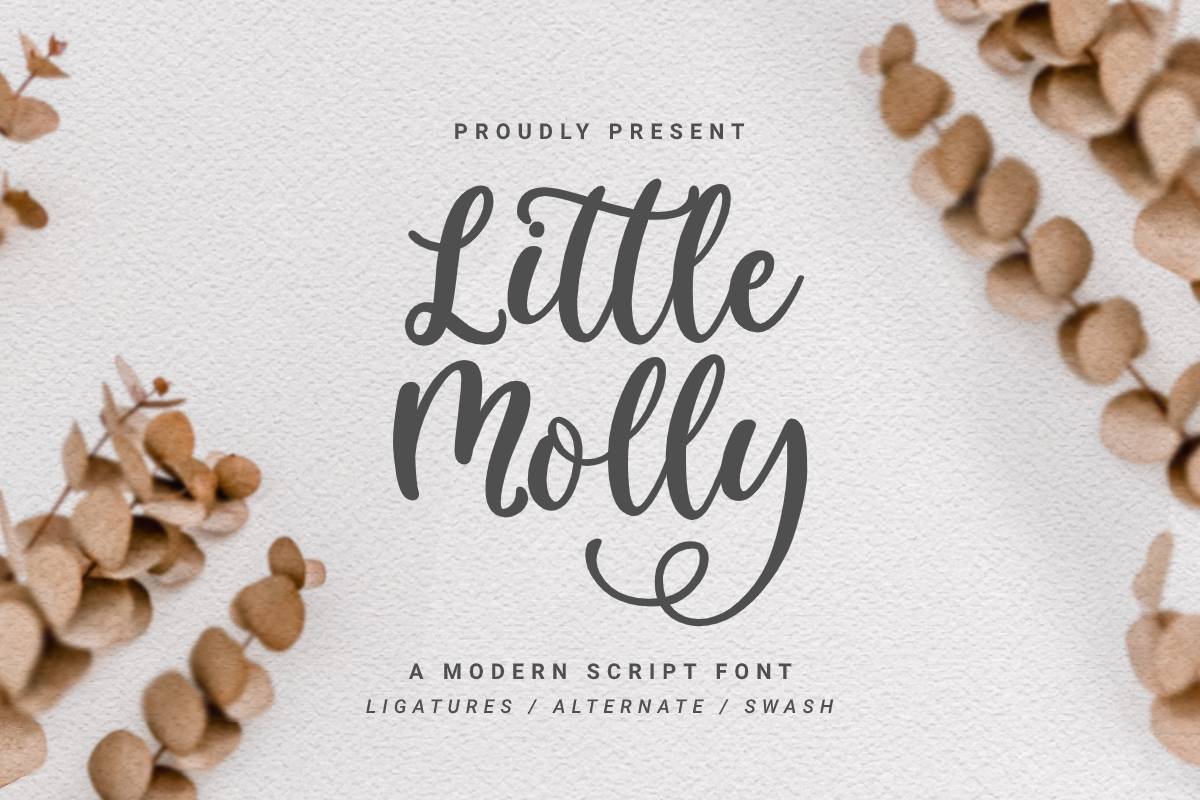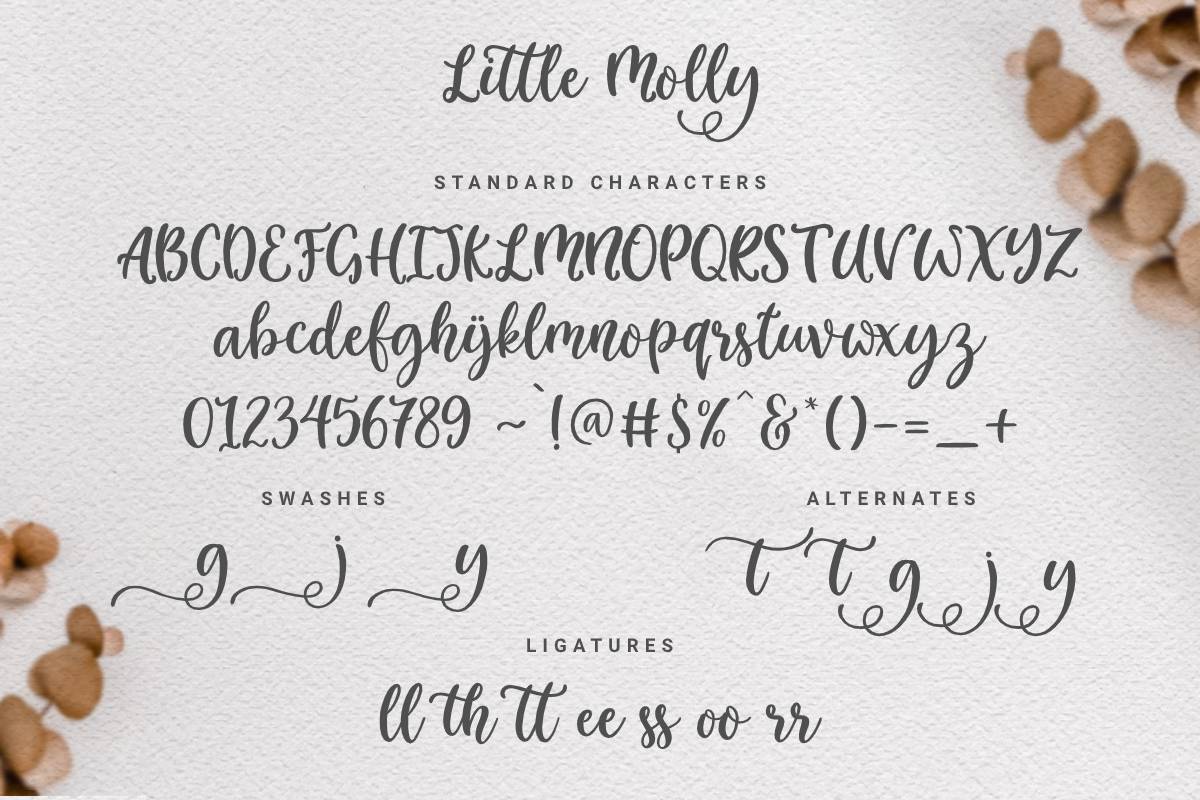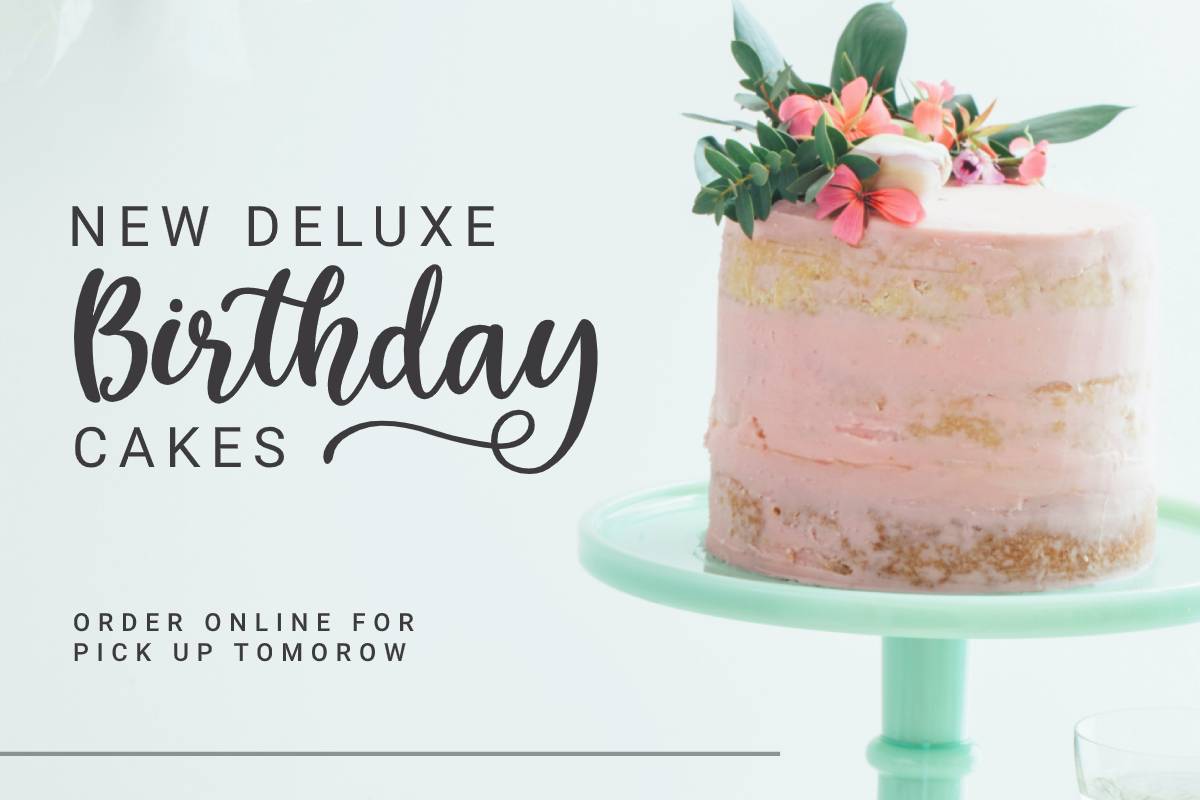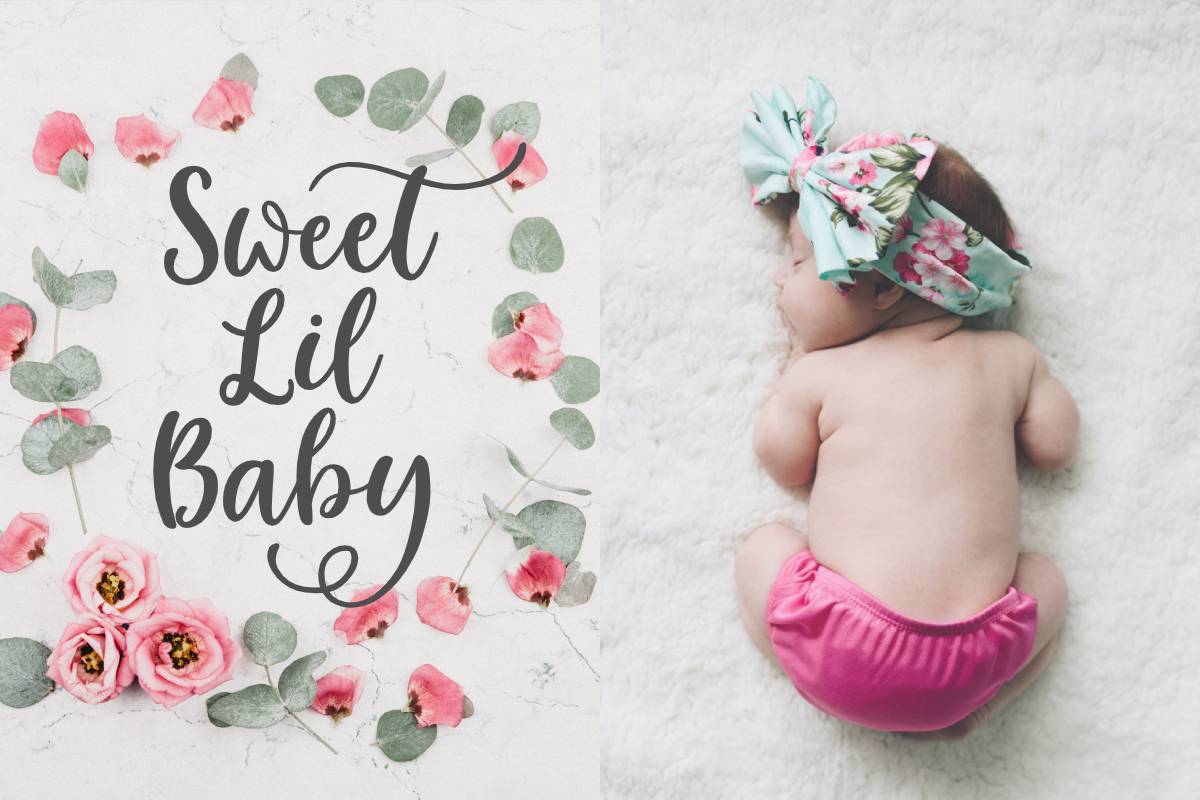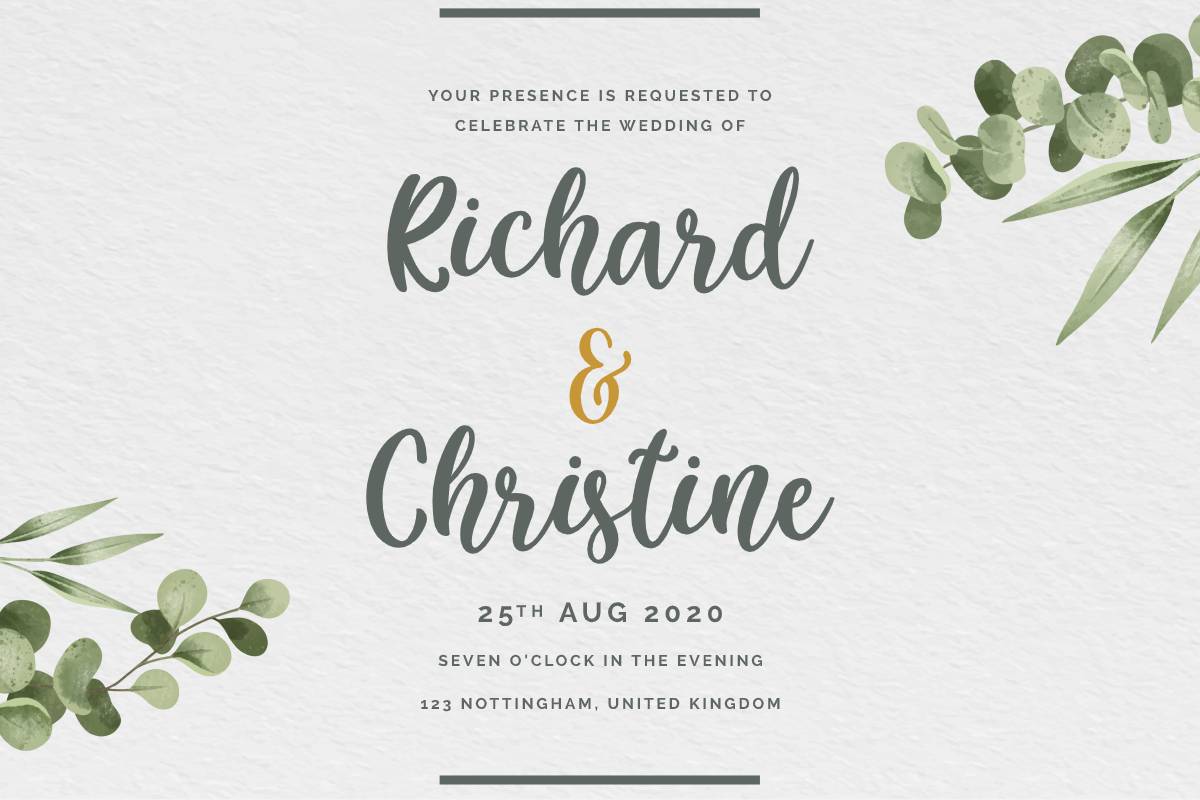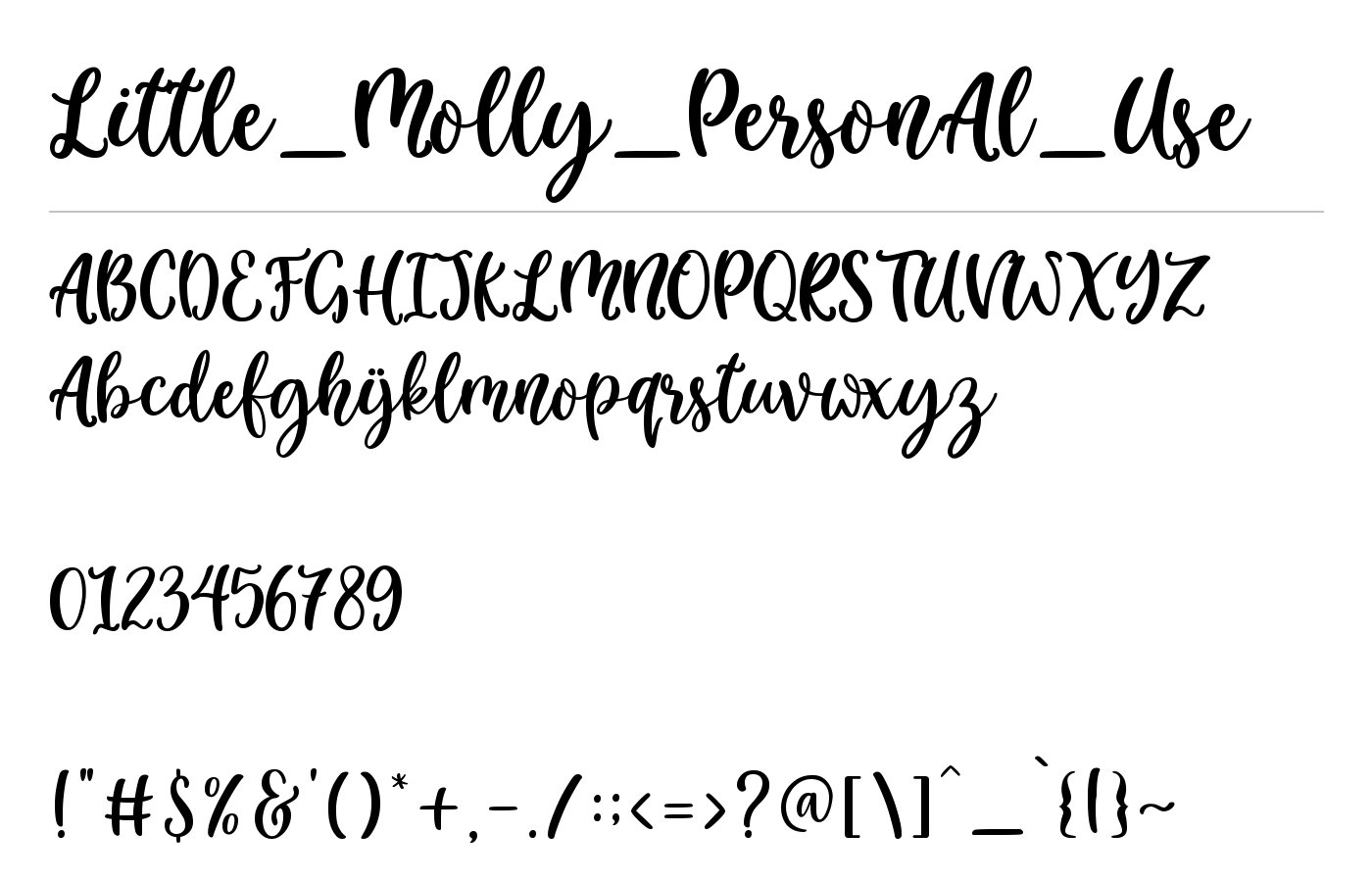
Little Molly is a charming script font featuring smooth, flowing strokes and a casual yet elegant hand-lettered feel. Its moderate weight and slightly condensed form make it perfect for adding a warm, personal touch to invitations, branding, or social media graphics. This font’s friendly personality and clear readability work well for projects needing a stylish but approachable aesthetic.
| Font family | Little Molly Font |
| Release date | 2020-08-31 |
| Designer | Jamaludin @Jimtypestudio |